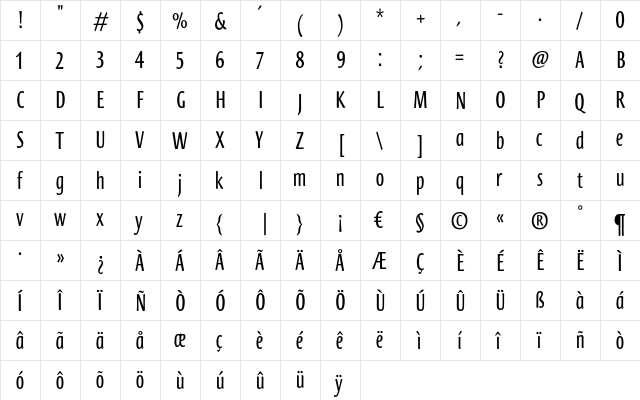
CarrefourUltraCond Medium
Design Context for CarrefourUltraCond Typeface
CarrefourUltraCond takes a measured approach to typography — its balanced proportions and neutral character make it a reliable workhorse for both digital and print work. The condensed width makes it efficient for tight spaces without sacrificing legibility.
Pro Tip: Pair CarrefourUltraCond with a font of contrasting weight or personality to build a more expressive typographic hierarchy.